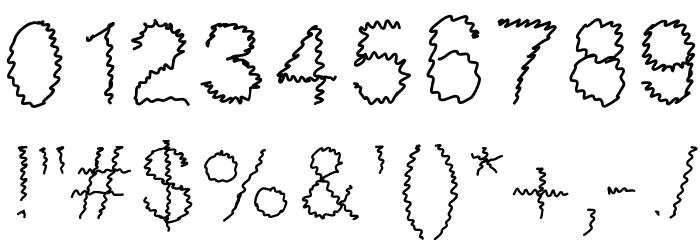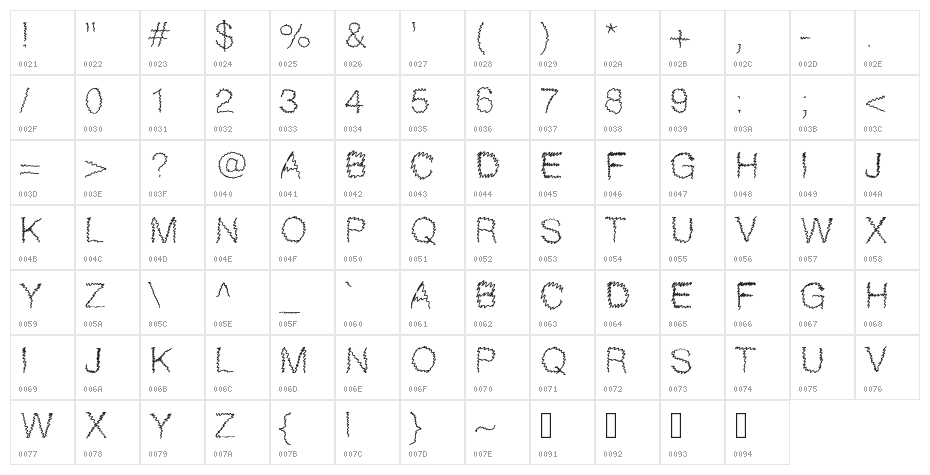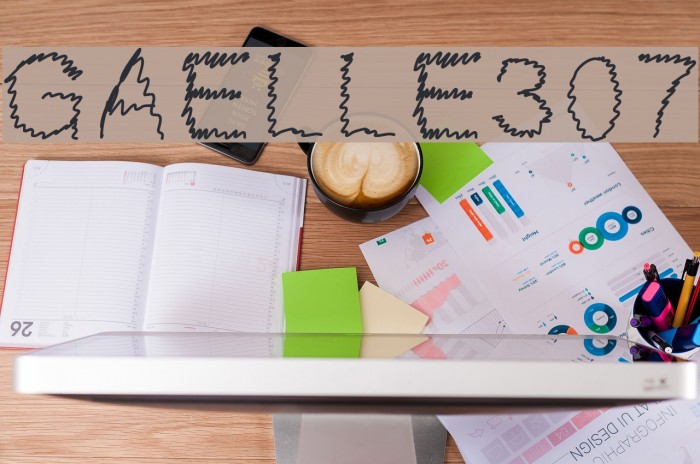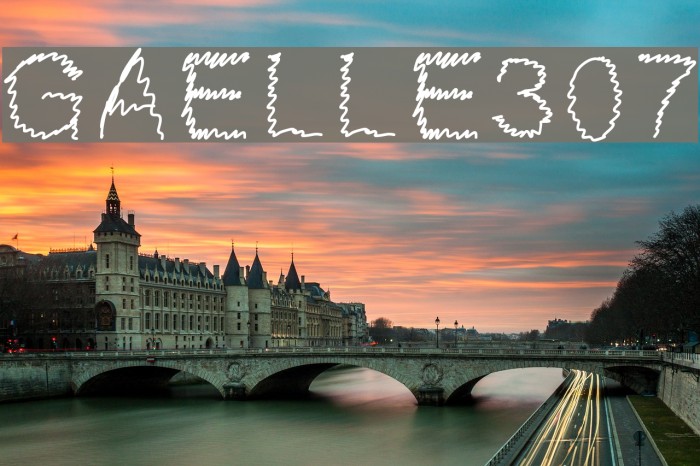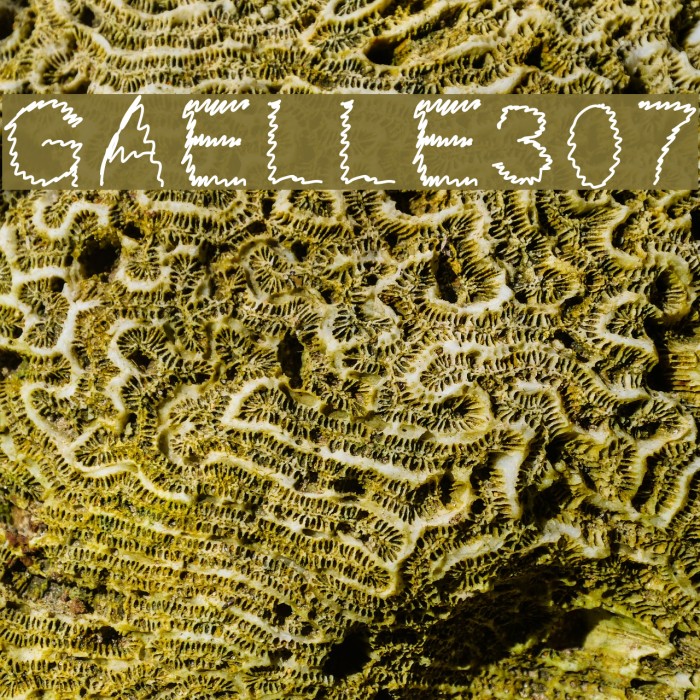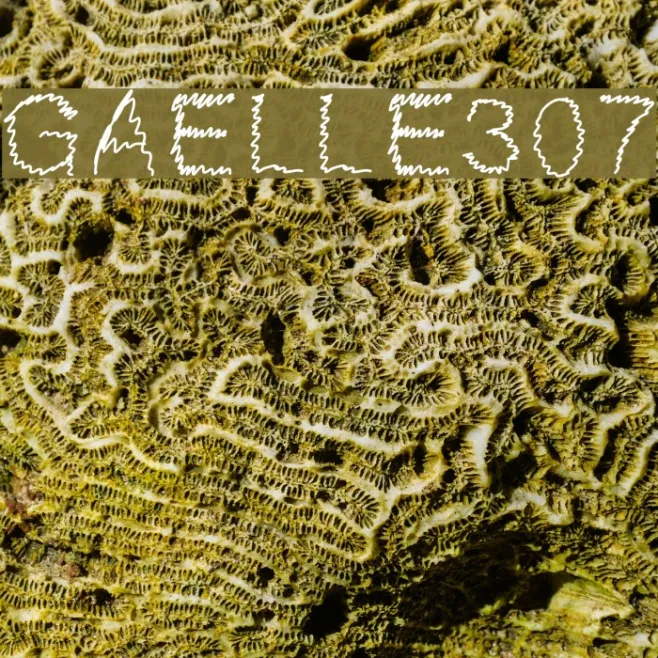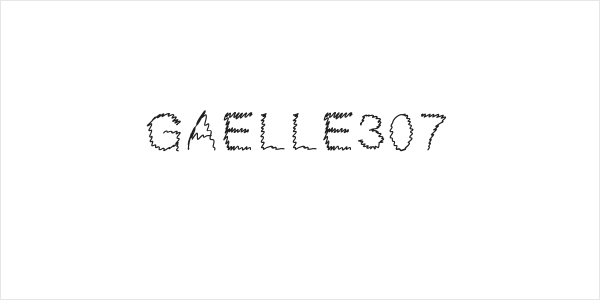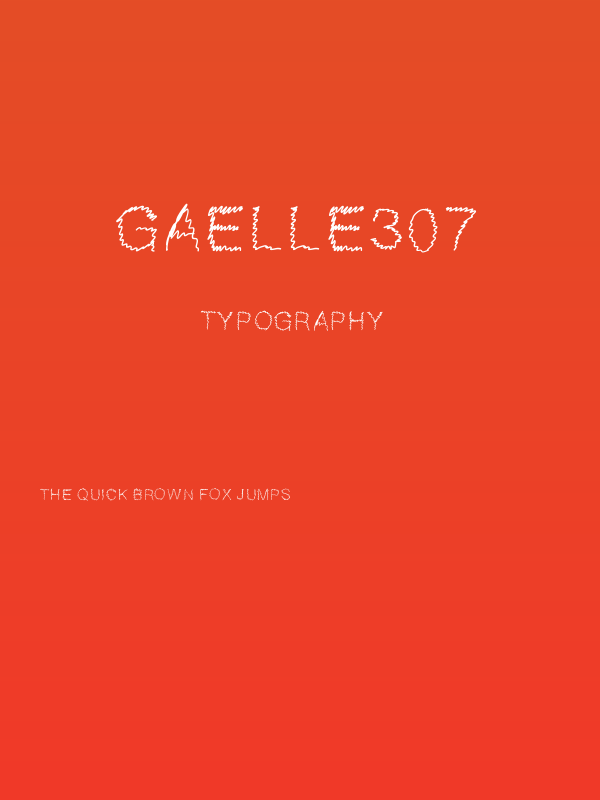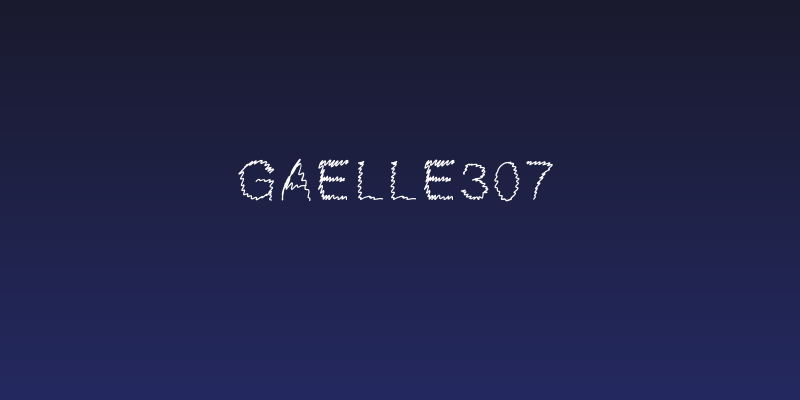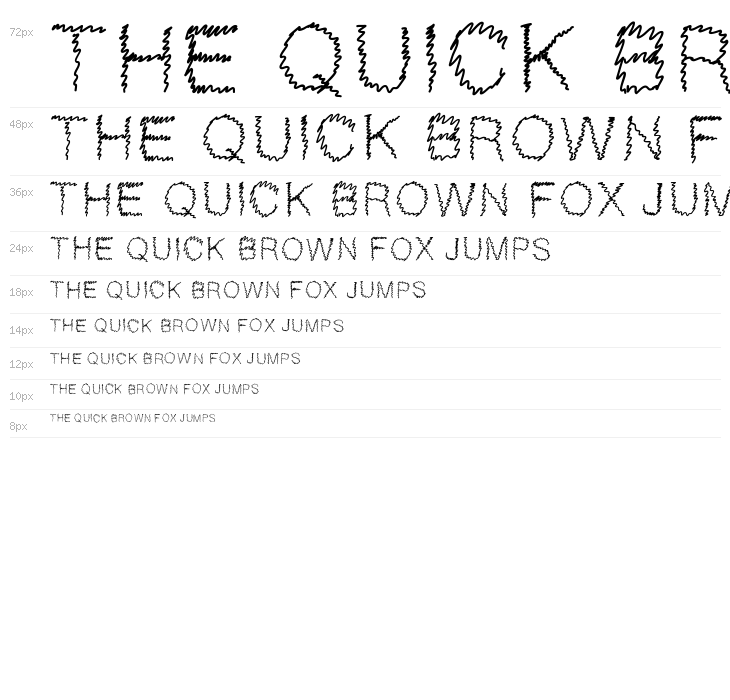
Gaelle307 Font
Gaelle307 Description
This font features a unique, wavy design that gives each character a dynamic and energetic appearance. The letters are crafted with a zigzag pattern, creating a sense of movement and fluidity. This distinctive style is consistent across uppercase and lowercase letters, as well as numbers and special characters. The font's playful and unconventional look makes it stand out, offering a creative twist on traditional typography. Its irregular lines and shapes suggest a sense of spontaneity and artistic flair, making it ideal for projects that require a bold and eye-catching typeface.
Proposed ProjectsIdeal for creative projects, posters, album covers, and branding that seeks a bold and artistic touch.